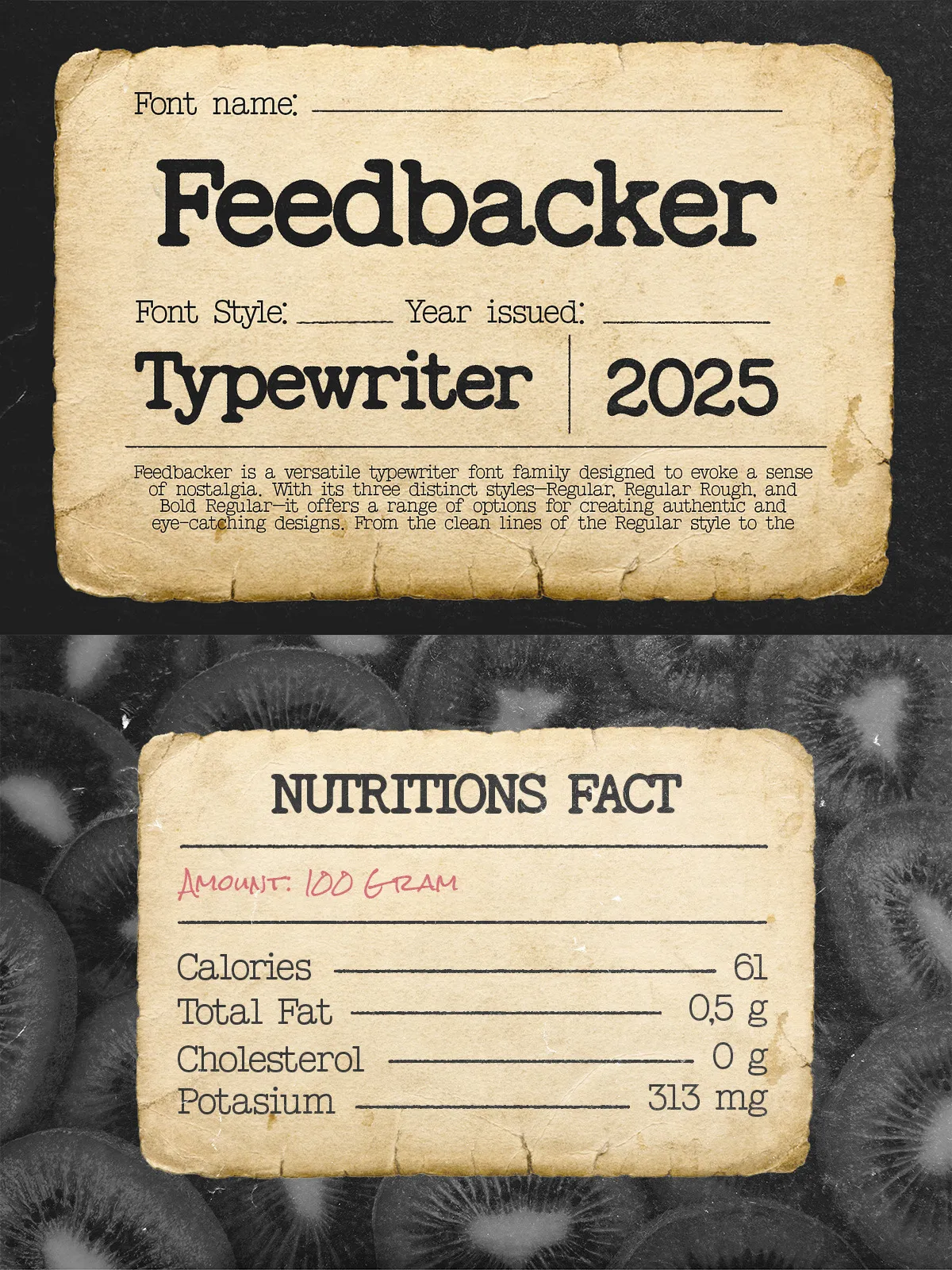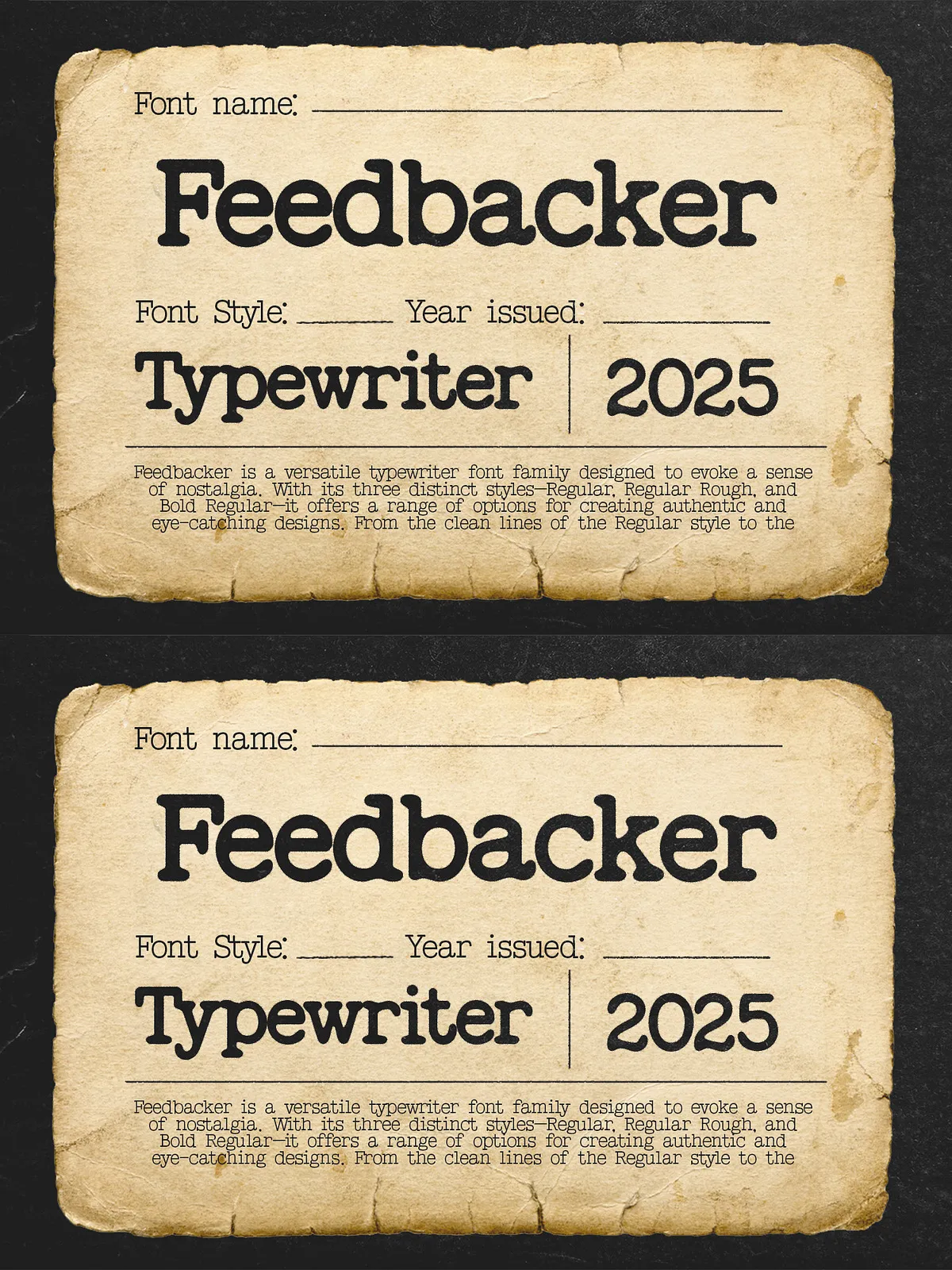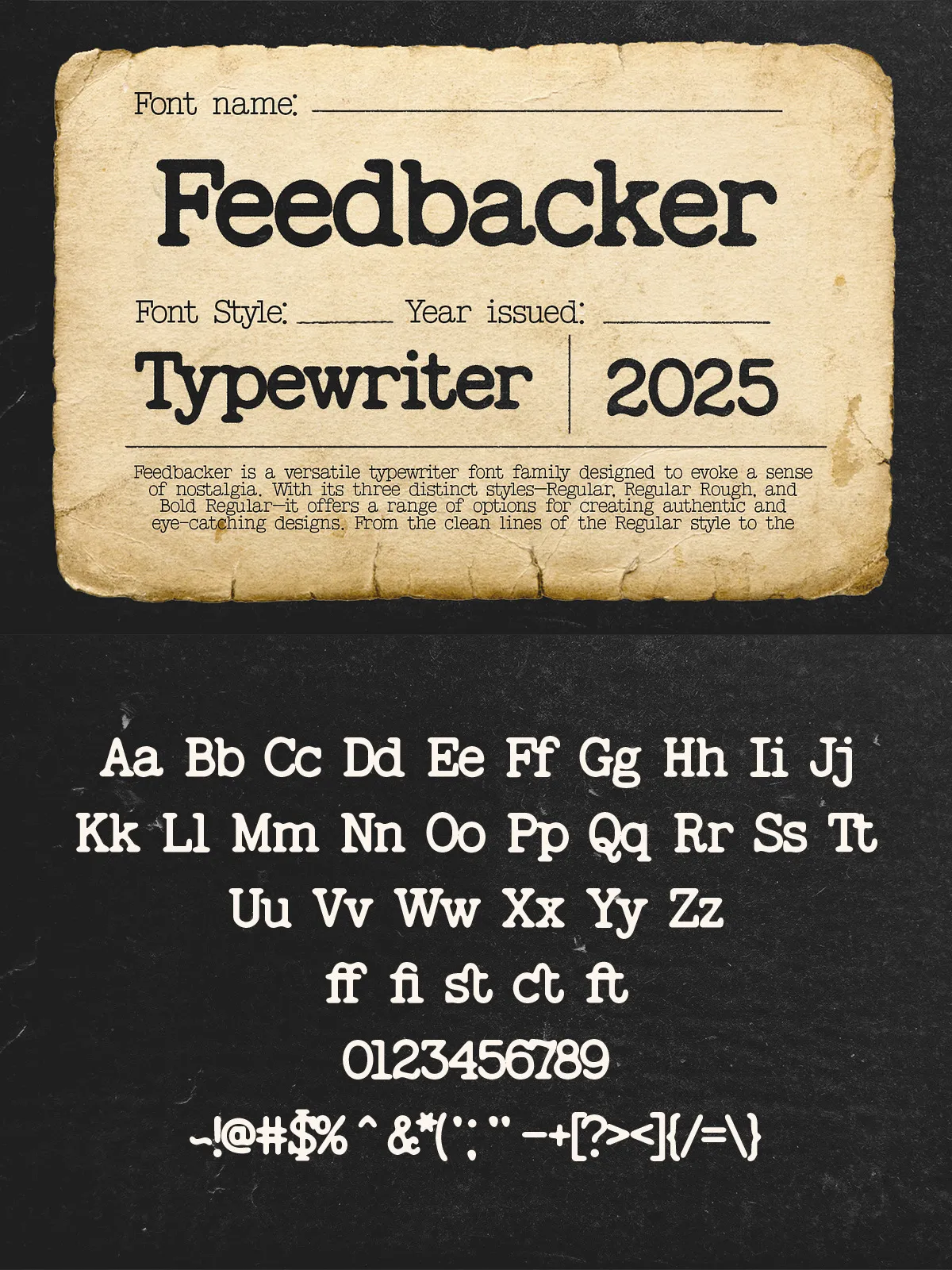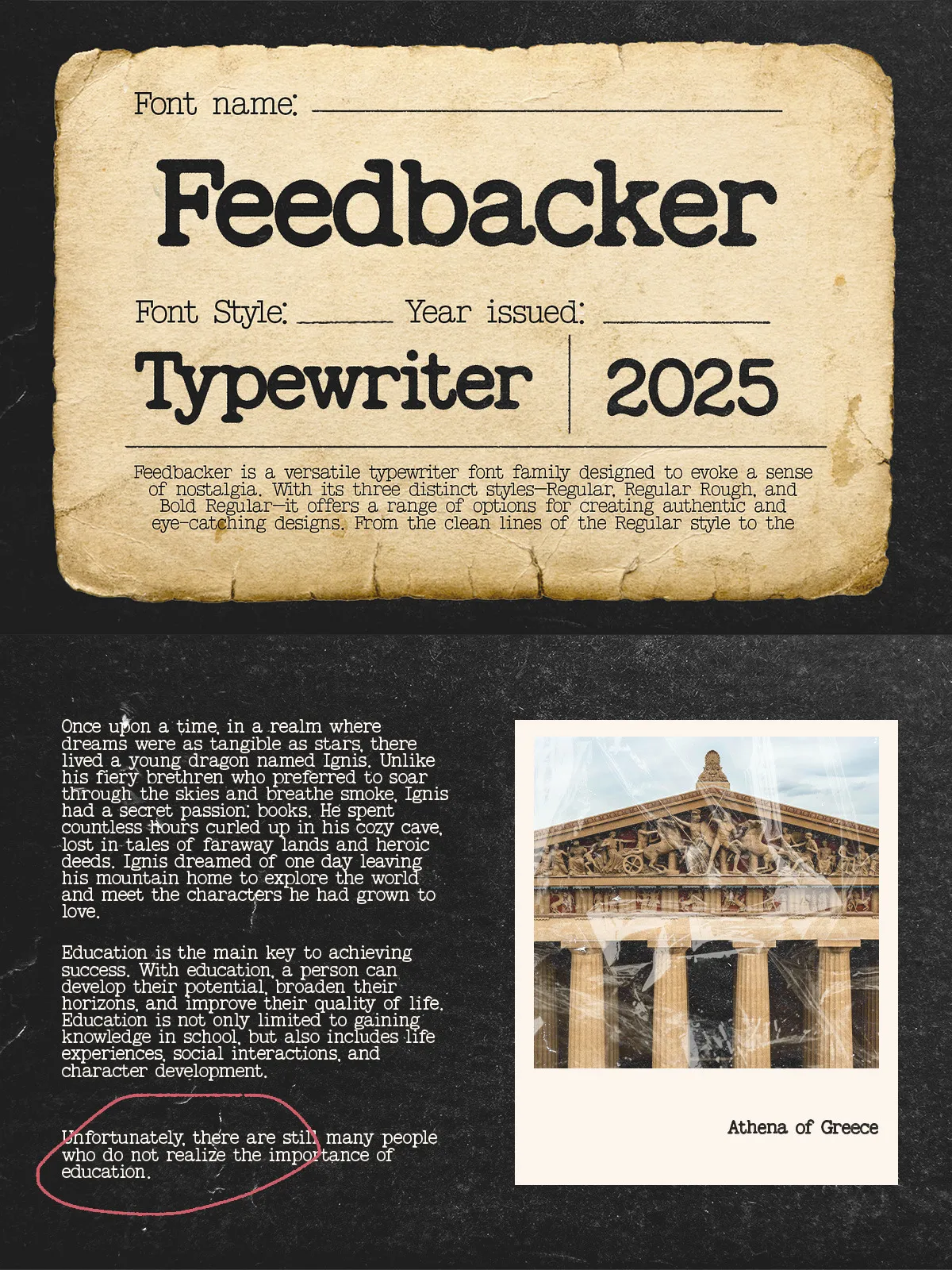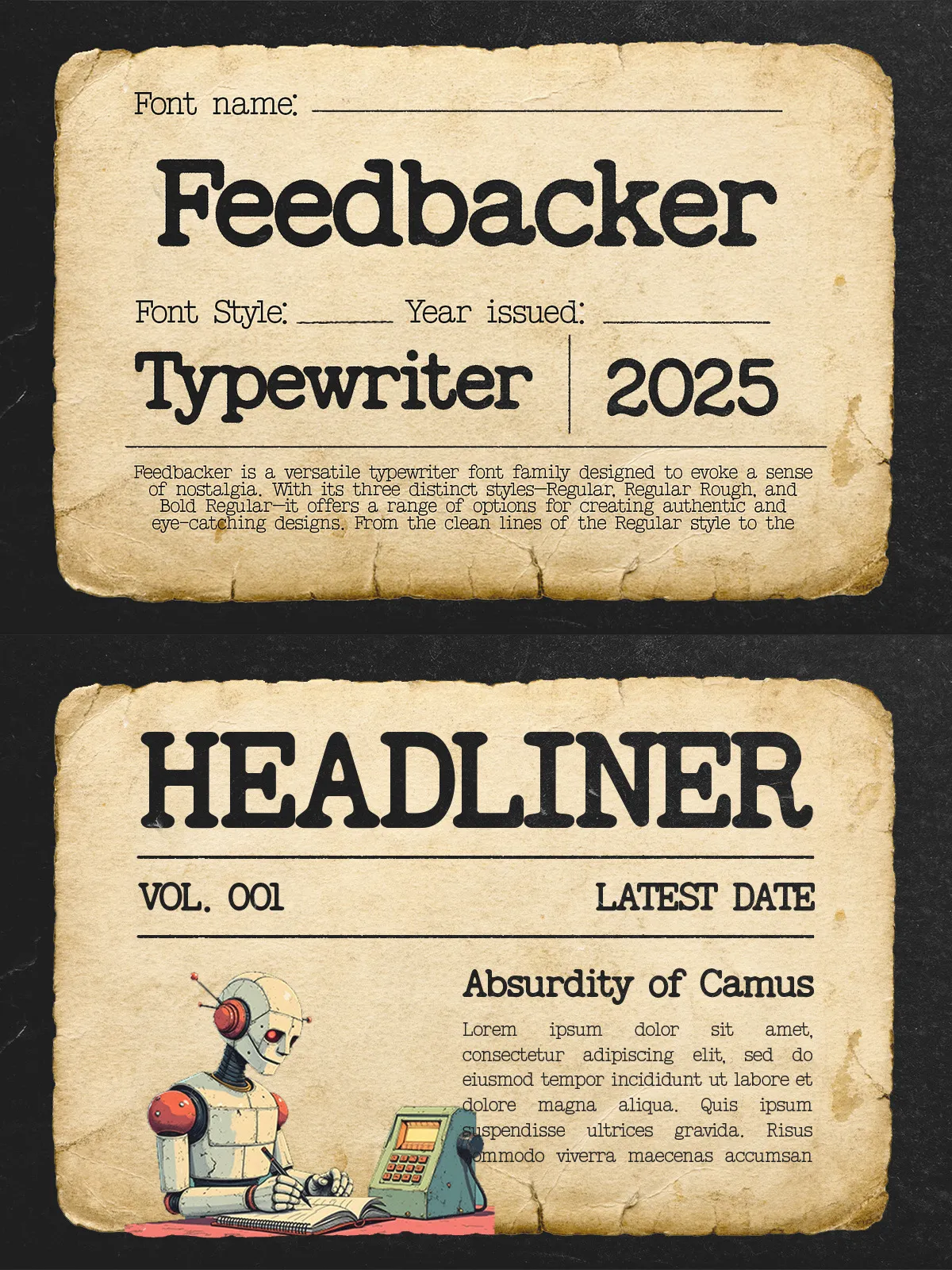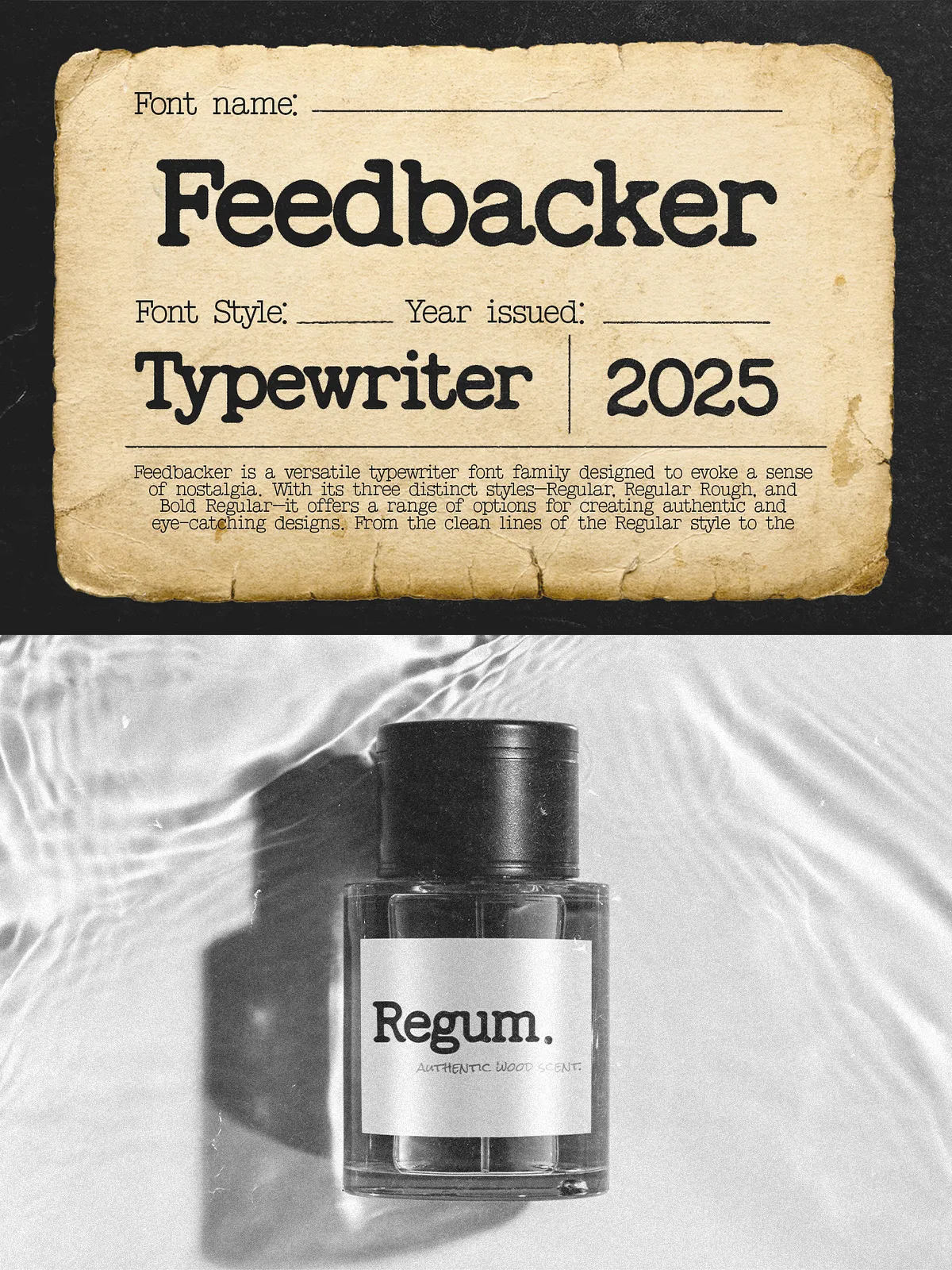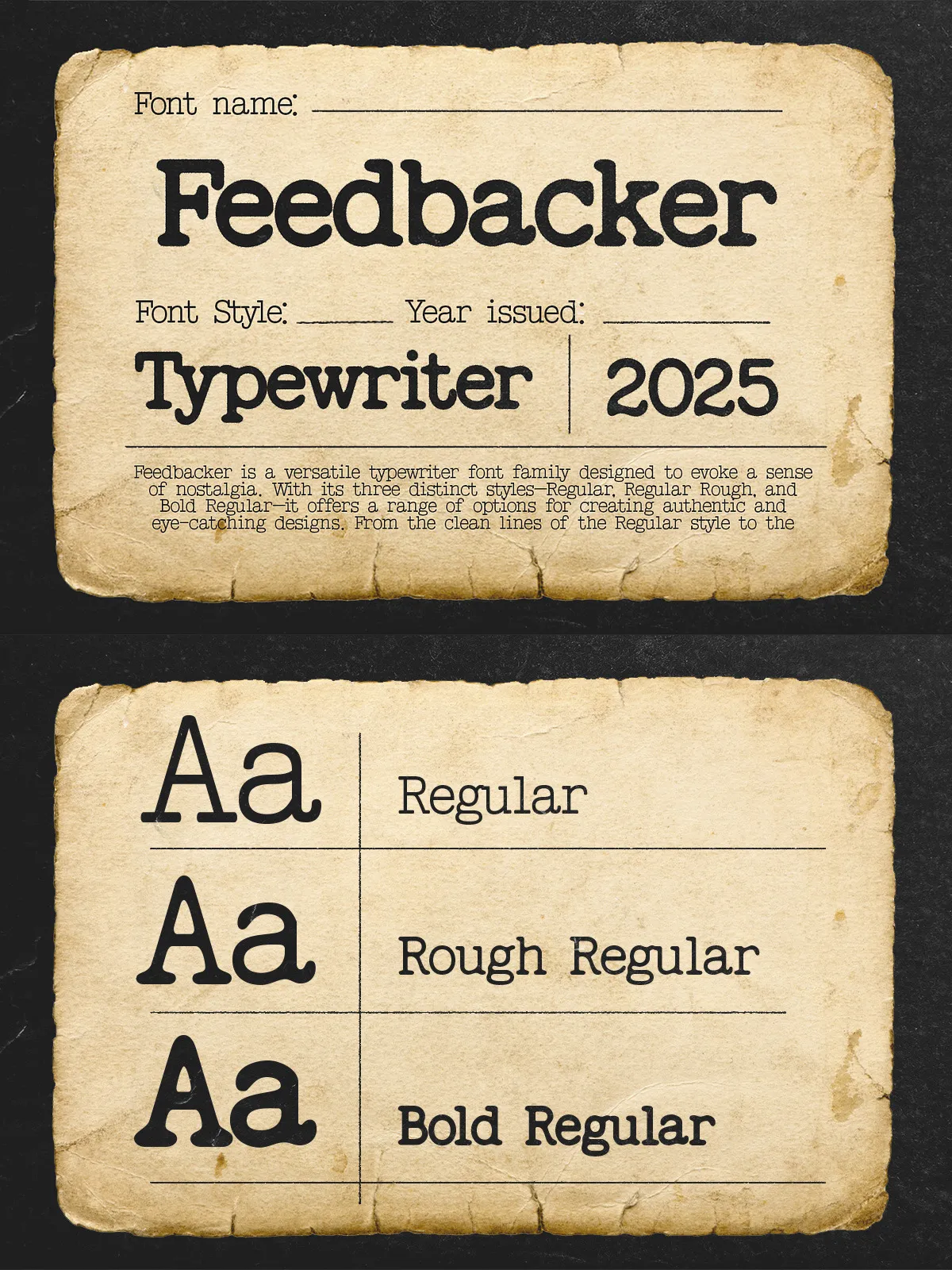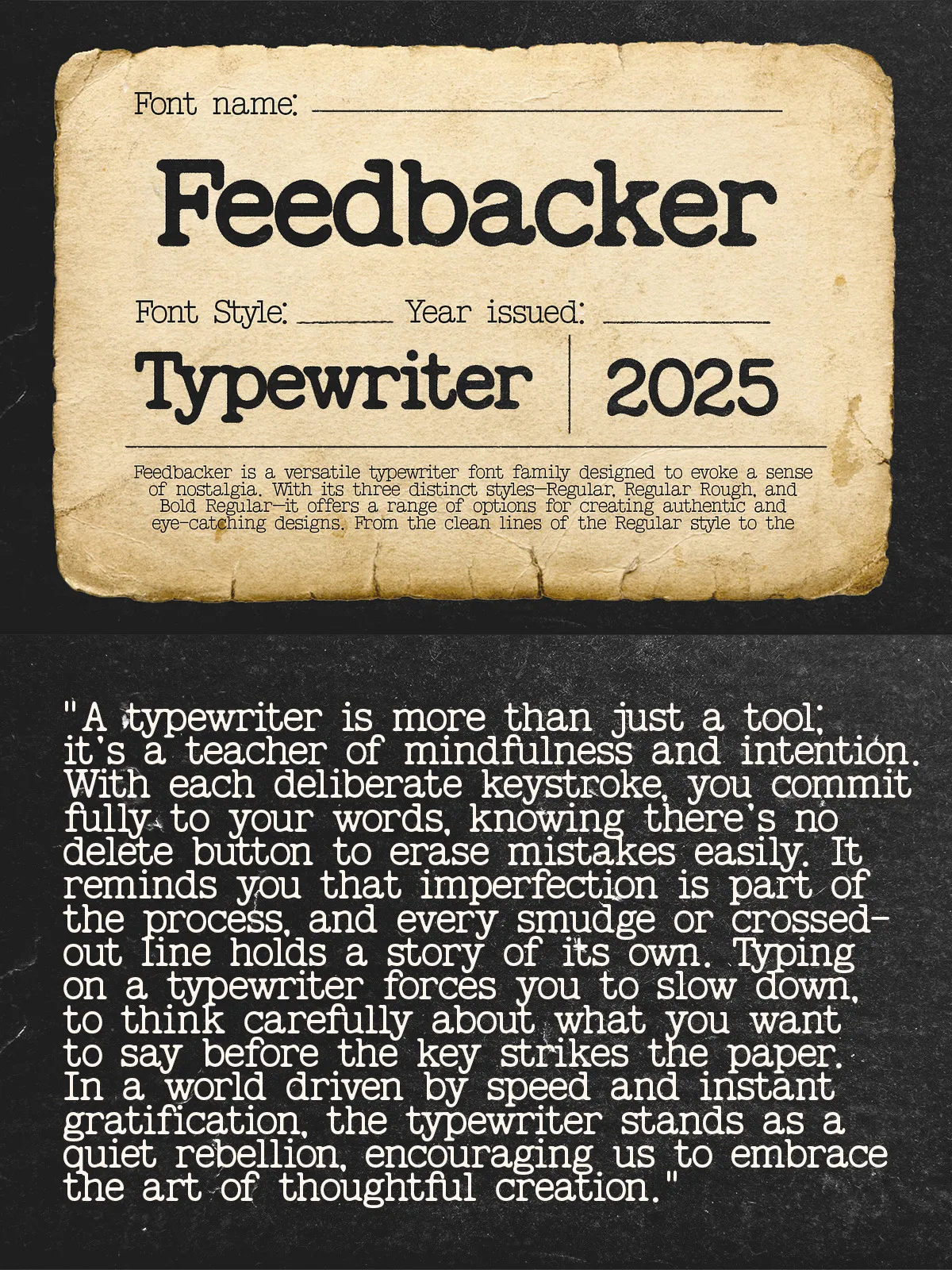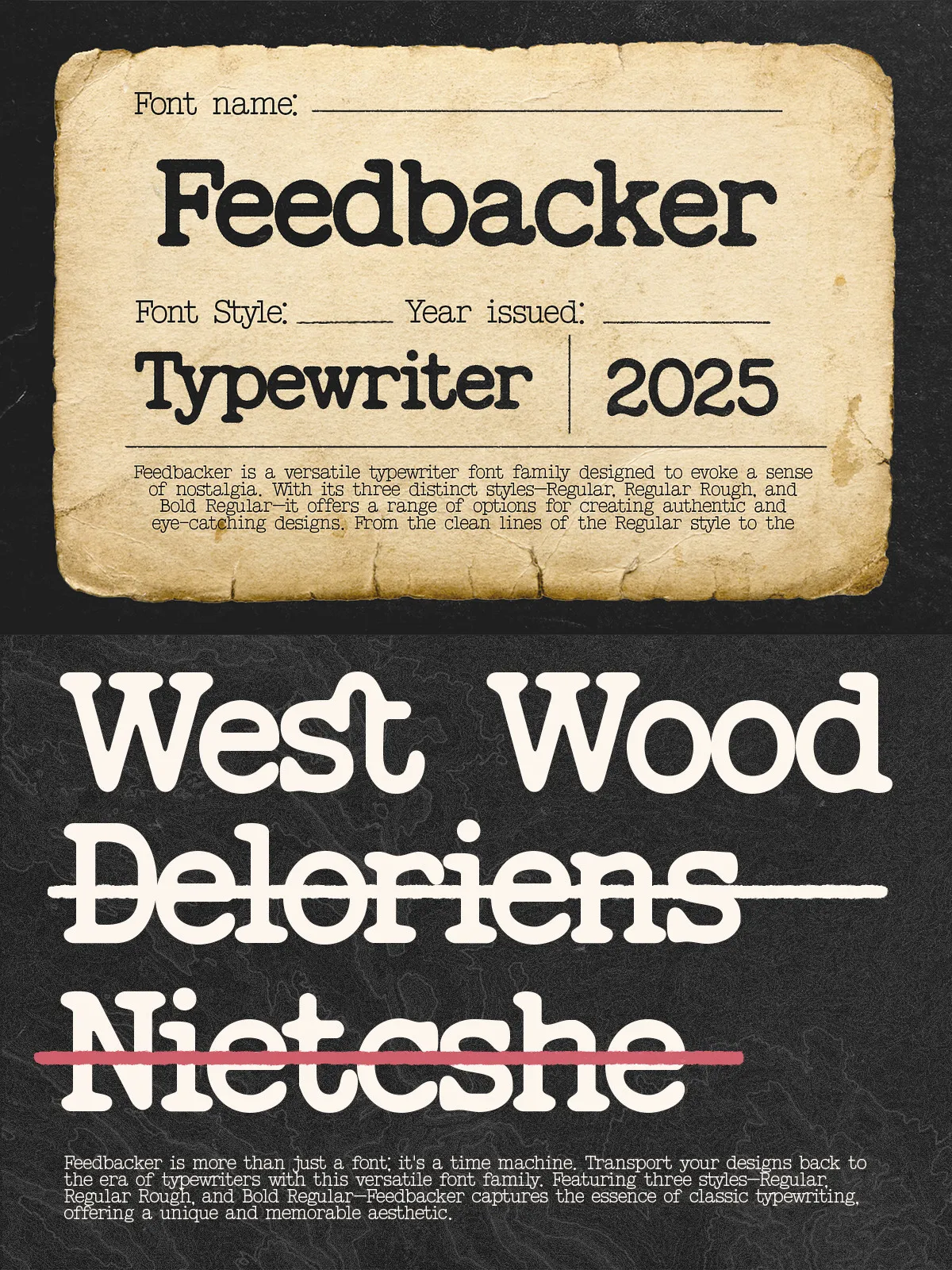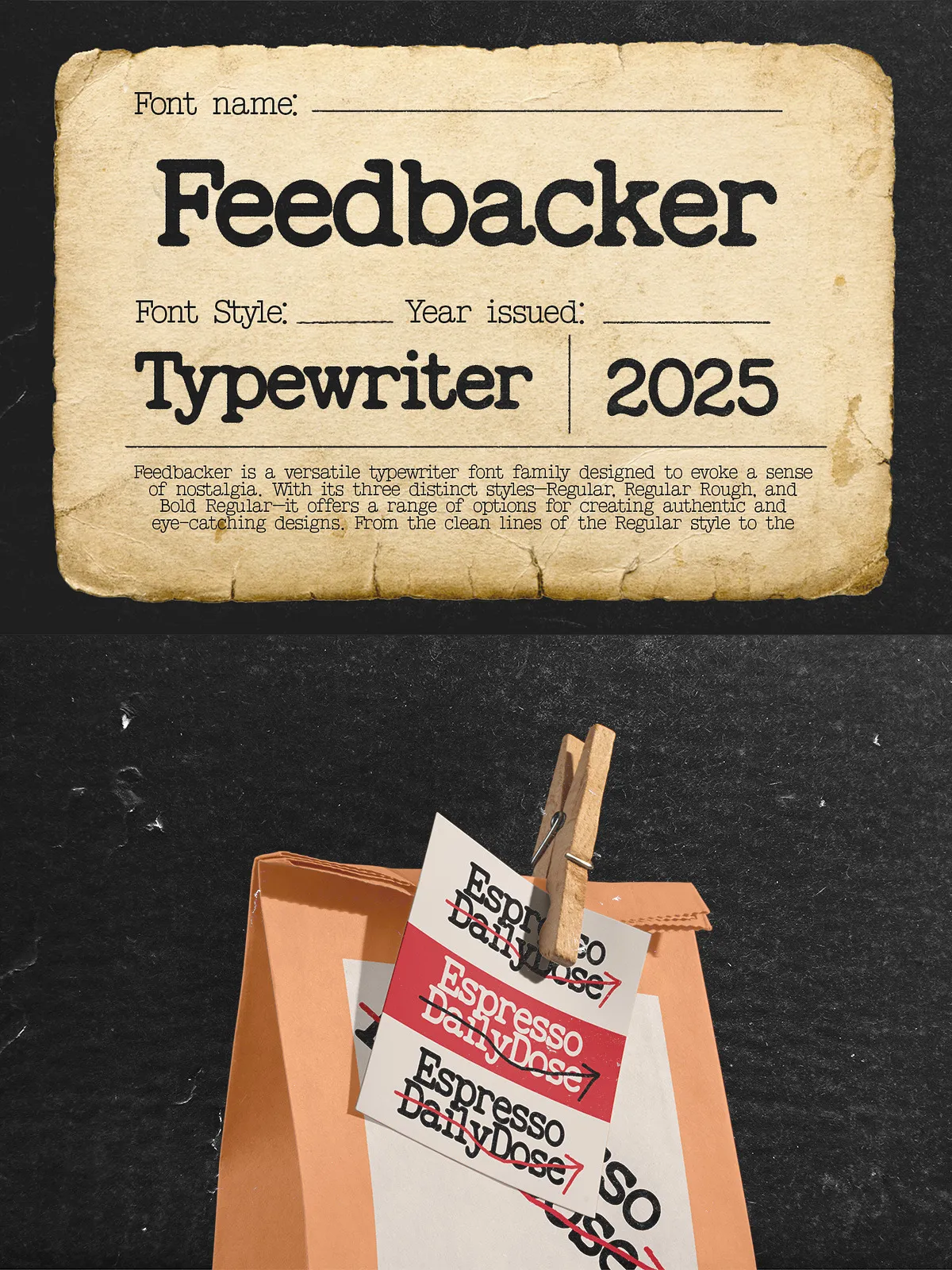
Dive into the past with Feedbacker Typewriter, a meticulously crafted font that captures the authentic texture, imperfections, and timeless personality of real vintage typewriters. Every stroke, every slight unevenness, and every subtle ink bleed has been preserved to deliver a genuine retro experience — without the clunky machine.
Whether you’re designing a retro-themed poster, crafting a heartfelt letter, building a nostalgic brand identity, or adding character to an editorial spread, Feedbacker Typewriter brings depth, emotion, and authenticity to every word you type.
Three Styles, Infinite Possibilities
Feedbacker Typewriter isn’t just one font — it’s a full family built for versatility. Choose the perfect style to match your project’s mood and message:
- Regular — Clean, precise, and professional. Ideal for formal notes, elegant invitations, and polished branding with a vintage twist.
- Rough — Worn-in, imperfect, with subtle texture and irregular stroke weight. Perfect for handmade designs, street art, and raw, emotional storytelling.
- Bold Regular — Powerful and commanding. Makes a bold statement in headlines, posters, or logos, combining vintage charm with modern impact.
Each variation is engineered to maintain typographic integrity while delivering unique character, so you never have to sacrifice readability for style.
• Designed for Real-World Creativity
Feedbacker Typewriter is not just pretty — it’s practical. It’s built for designers who demand both authenticity and performance across platforms and applications:
- Full support for uppercase and lowercase letters
- Complete punctuation, numerals, and special characters
Suitable for Every Project That Needs Character
Feedbacker Typewriter bridges the gap between memory and modernity, making it a perfect fit for a wide range of creative applications:
- Branding & Identity — Create a unique brand voice with a vintage soul. Ideal for cafés, bookstores, artisans, and boutique studios.
- Editorial Design — Add warmth and personality to magazine layouts, blogs, newsletters, and book covers.
- Posters & Promotions — Transform events, concerts, film premieres, and gallery openings into nostalgic experiences.
- Letters & Invitations — Write love notes, wedding invitations, or thank-you cards that feel deeply personal and handcrafted.
- Digital & Web Use — Use it for landing pages, banners, or interactive elements that need to evoke emotion and connection.
Make Every Word Feel Meaningful
In a world of sleek digital fonts, Feedbacker Typewriter stands out. It doesn’t just type — it tells a story. It doesn’t just display text — it evokes memory, warmth, and craftsmanship.
Stop designing with cold precision. Start designing with soul.